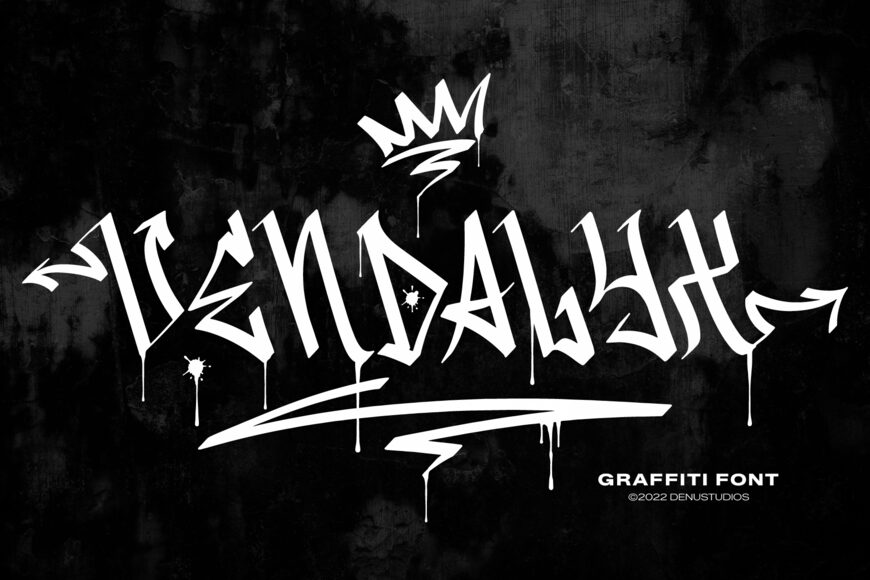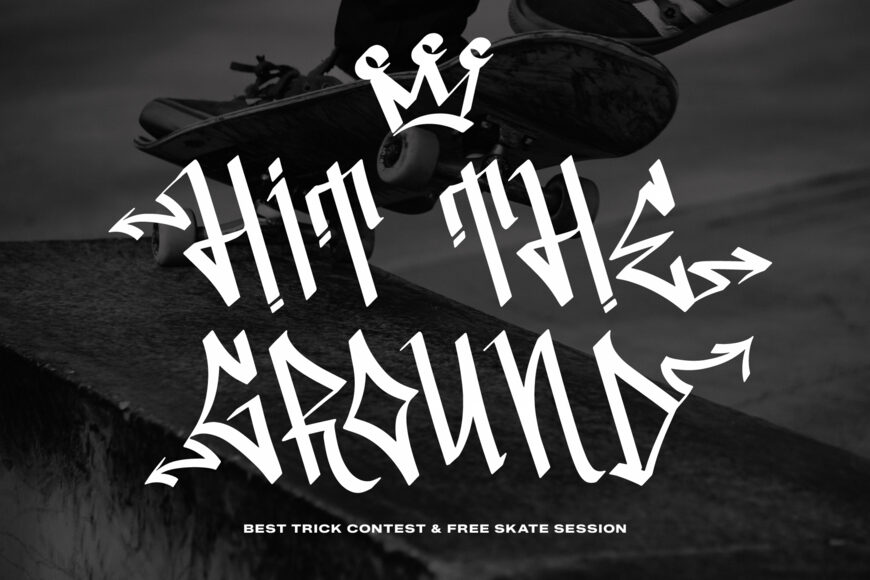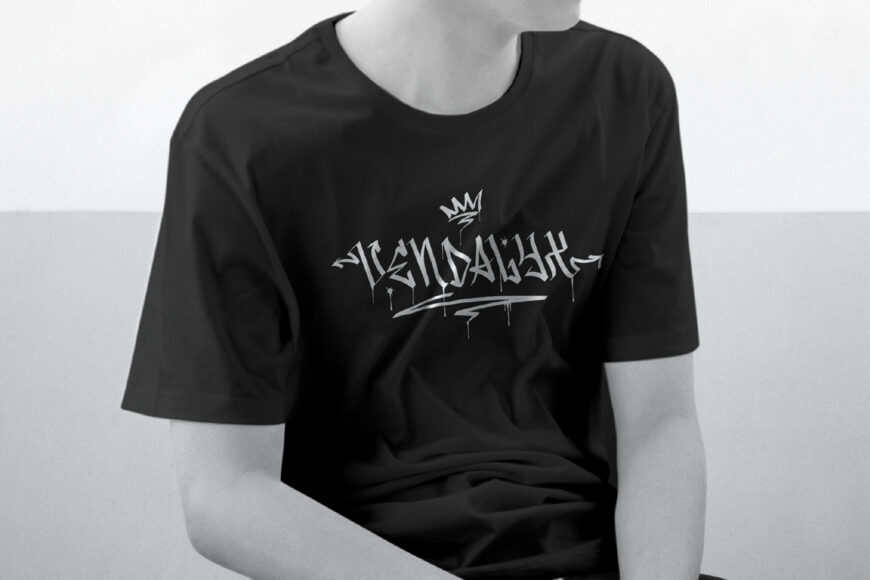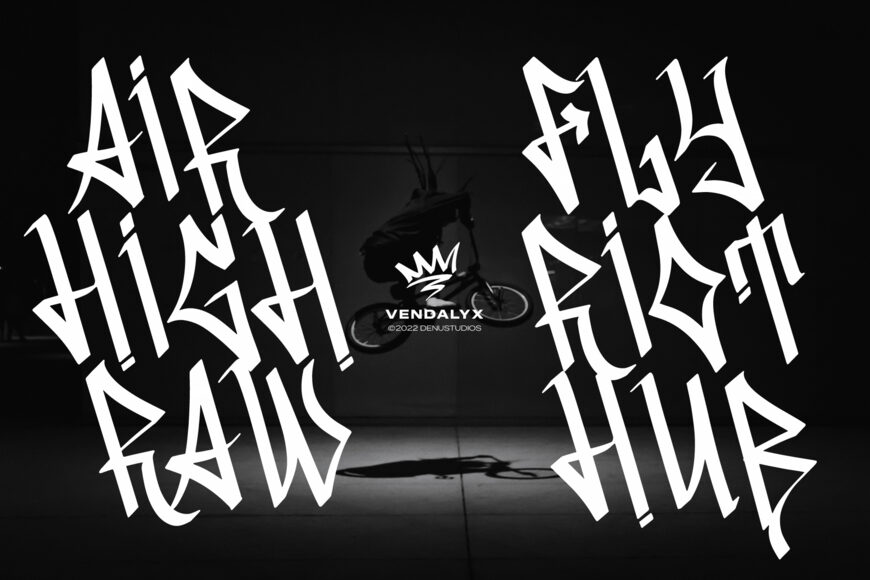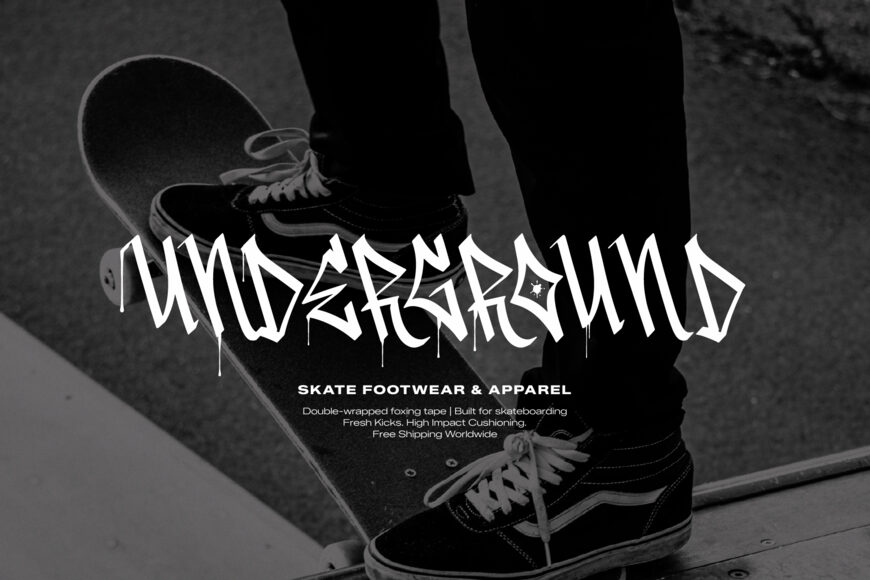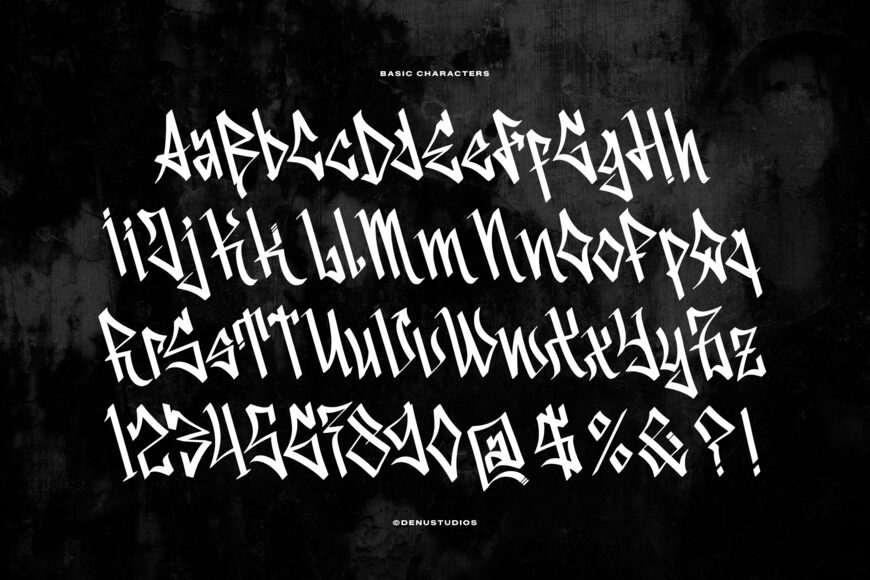
Infuse raw underground energy, authentic street art culture, and bold attitude into your designs with Vendalyx, an urban graffiti font! Crafted with aggressive tag-style strokes, sharp chisel edges, paint drips, and signature crown details, this high-impact display typeface captures the authentic spirit of wall tagging and modern streetwear aesthetics.
Whether you’re designing streetwear apparel, hip-hop album covers, skateboarding branding, underground event posters, edgy logo marks, or high-energy headlines, Vendalyx commands the canvas with undeniable street-level power.